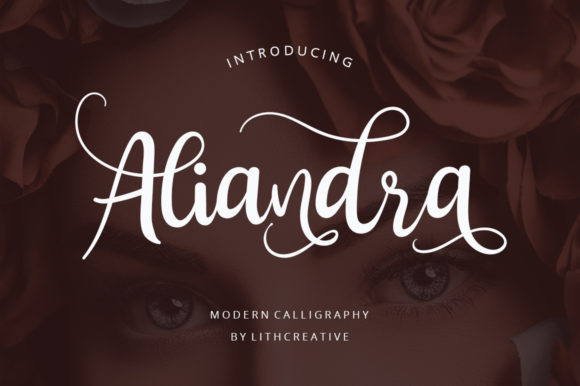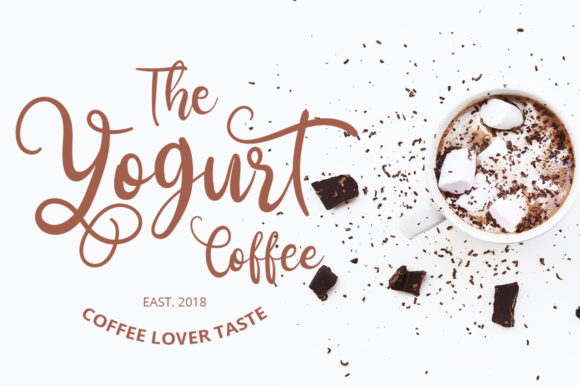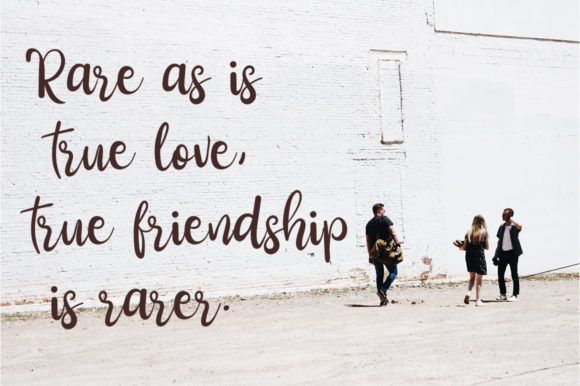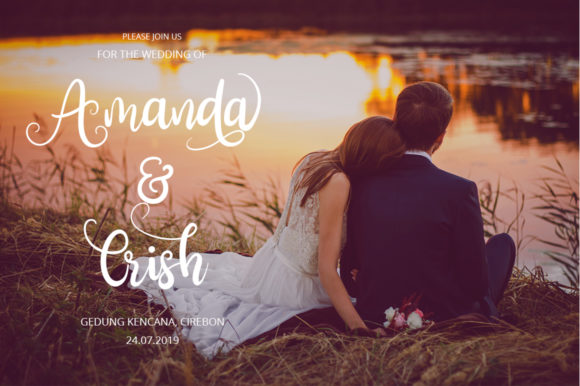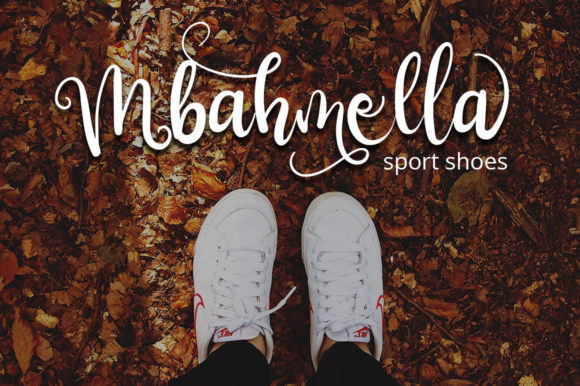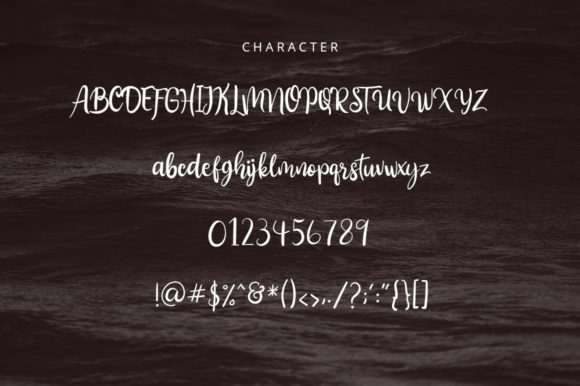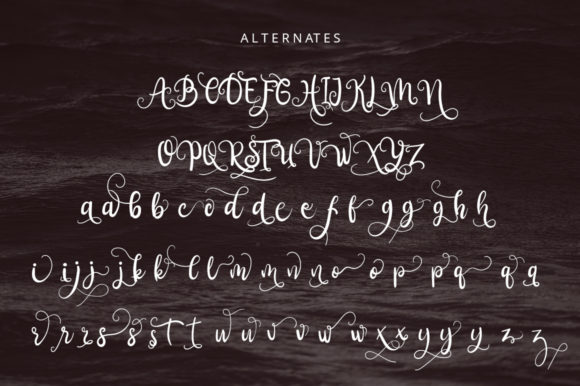
Aliandra Font
About Aliandra Font
Aliandra is a beautiful calligraphy font with a unique vibe. It’s perfect for adding a graceful feel to any design project.